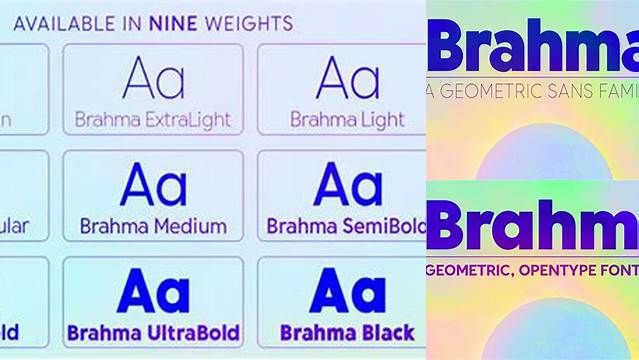
Are you on the hunt for a stunning, versatile font that can elevate your design projects? Look no further! The Brahma font family is a fantastic choice, and guess what? You can get the Brahma font family free download! This comprehensive guide will walk you through everything you need to know about this popular font, including its features, how to download it, and how to use it effectively in your projects. So, let's dive in, guys!
What Makes the Brahma Font Family Special?
The Brahma font isn't just another typeface; it's a design powerhouse! This font family boasts a unique blend of elegance and readability, making it perfect for various applications. Think of it like this: you're building a house, and you need the perfect foundation. The Brahma font is that foundation for your design projects. Its clean lines and modern feel make it incredibly versatile. Whether you're working on a website, creating marketing materials, or designing a logo, the Brahma font can adapt to your needs. Its distinct character makes it stand out from the crowd. This font is especially great because it is a sans-serif font. Sans-serif fonts are known for their legibility, particularly online. This makes Brahma font an excellent option for digital designs. But don’t be fooled, it’s just as amazing for print.
One of the key advantages of the Brahma font is its wide range of weights and styles. Most font families only offer a few options, but Brahma comes with a selection of different weights, from light to bold, and styles, like regular and italic. This allows you to create a cohesive design while adding visual interest. Want to emphasize a headline? Use the bold version. Need a subtle touch for body text? The regular weight will do the trick. This adaptability is what makes the Brahma font family so beloved by designers. Also, the font's clean aesthetics make it perfect for minimalist designs. If you're looking to create a modern and uncluttered look, Brahma is a great choice. It won't distract from your message but will complement it beautifully. With its range of styles, Brahma font can also be paired with other fonts to create unique and interesting combinations. Experiment with different fonts to find the perfect match for your project. Using this font will allow you to be a versatile designer, as it will help with all sorts of designs. With its clean aesthetics and range of styles, Brahma is also a solid choice for various branding projects. Whether you are a small business or a large corporation, it's a safe font to utilize. This font family can help give your brand an identity and visual cohesion. It really is an amazing font!
Beyond its aesthetic appeal, the Brahma font also scores high on readability. In today’s fast-paced world, you need a font that’s easy to read at a glance. The Brahma font does just that, ensuring your message is clear and understandable. This is especially important for online content and marketing materials. If people can't quickly grasp what you're trying to communicate, they will move on. The Brahma font helps grab their attention and keep them engaged. It’s like having a secret weapon to get people interested in what you are doing! When you are downloading, look out for its licensing terms, which typically allow for both personal and commercial use. Always make sure you comply with the license to avoid any legal issues. The font’s popularity has made it a go-to choice for designers worldwide. If you are starting or if you are an expert, this font is a good one to have in your arsenal of fonts.